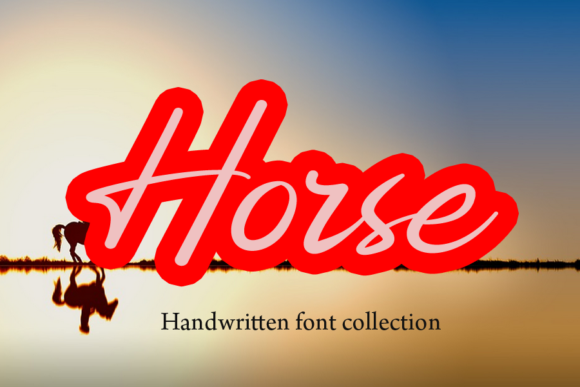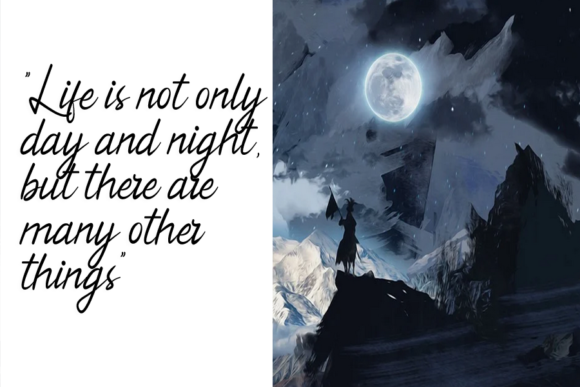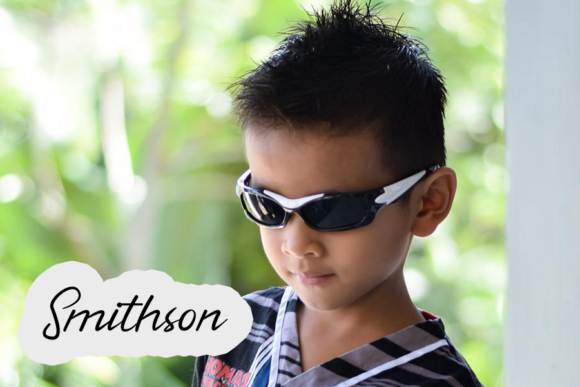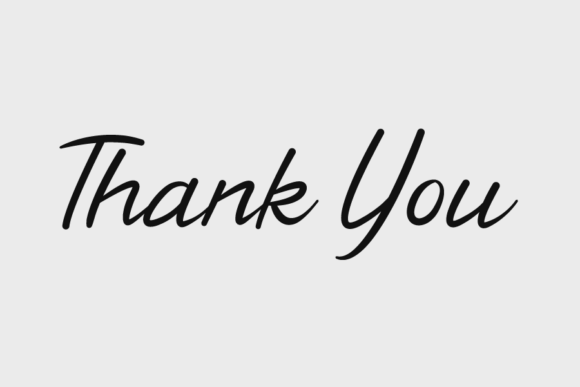
The Perfect Steed for Your Design
Have you ever stared at a blank page, pen in hand, waiting for inspiration to strike? For designers, those moments can be the most thrilling – and the most daunting. But what if I told you that the perfect starting point is just a click away? Introducing the Horse Font, a simple yet elegant handwritten font that’s guaranteed to add a touch of warmth and personality to your next project.
With its versatility and natural feel, Horse Font is the perfect companion for designers looking to add a human touch to their work. From greeting cards to headlines, this font is sure to make a lasting impression. Whether you’re a seasoned pro or just starting out, the Horse Font is a valuable addition to any design arsenal.
Horse Font Key Features
- Unique Characteristic: Horse Font features a unique, hand-drawn design that gives it a distinctive and playful feel, making it ideal for creative and whimsical applications.
- Character Set: The font includes a wide range of characters, including uppercase and lowercase letters, numbers, and punctuation marks, as well as special characters and symbols.
Horse Font Review
Overall, I’m a bit torn about the Horse Font. It’s a unique choice for any project, but its quirks make me question its usability. ✨ Let’s start with what works well. The font’s playful, handwritten feel is perfect for rustic or vintage-themed designs. The irregular strokes and letterforms evoke a sense of whimsy and freedom.
- The font’s bold weight is particularly striking, making it a great choice for headings or titles.
- The script-like quality of the font is well-suited for text-based designs, like signage or posters.
However, there are some limitations to consider ⚠️. The font’s irregularities can make it difficult to read, especially at smaller sizes. The lack of consistency in letterform spacing and weight can also make the font feel chaotic. Additionally, the font may not be the best choice for formal or professional designs, as its informal feel may clash with the tone you’re trying to convey.
Overall, I’d say the Horse Font is a great choice for designers looking to add a touch of personality to their projects. Just be sure to use it thoughtfully and consider the context in which it will be used.
Tips for Getting the Most Out of Horse Font
To get the most out of Horse Font, try:
- Using it in combination with other bold or playful fonts for maximum impact.
- Experimenting with different font sizes and colors to create visual interest.
- Using Horse Font for headings and titles to add a touch of whimsy.
Common Use Cases for Horse Font
Horse Font is commonly used:
- For children’s books, educational materials, and other youth-focused content.
- For creative and playful designs, such as invitations and event promotions.
- For branding and marketing materials that require a fun and approachable tone.